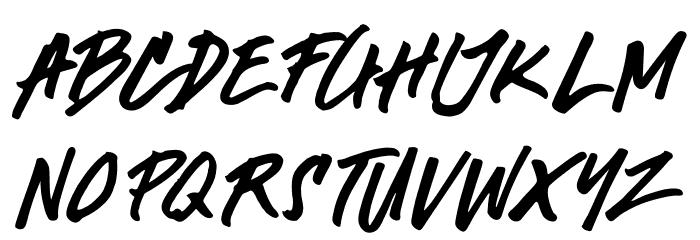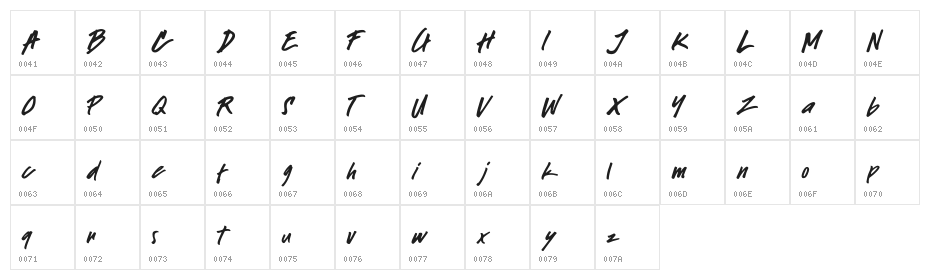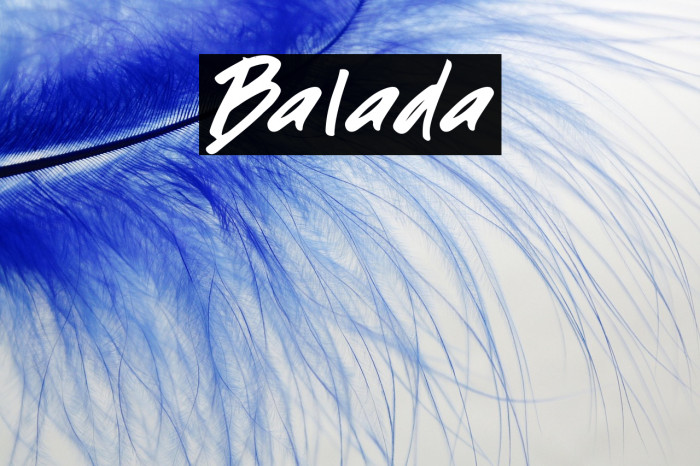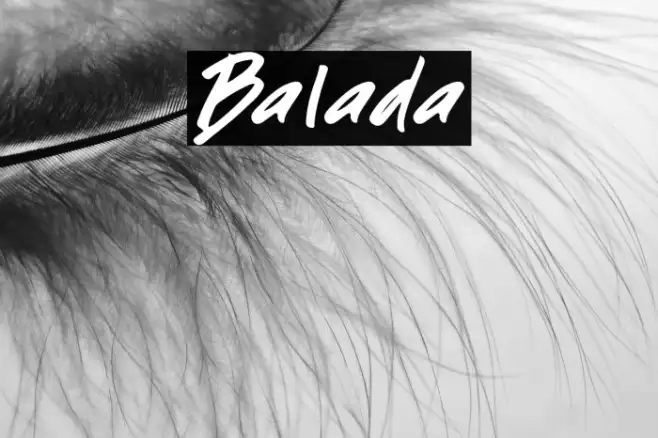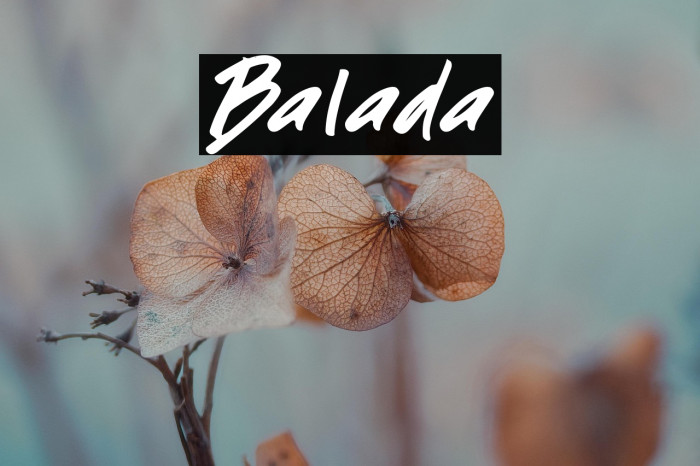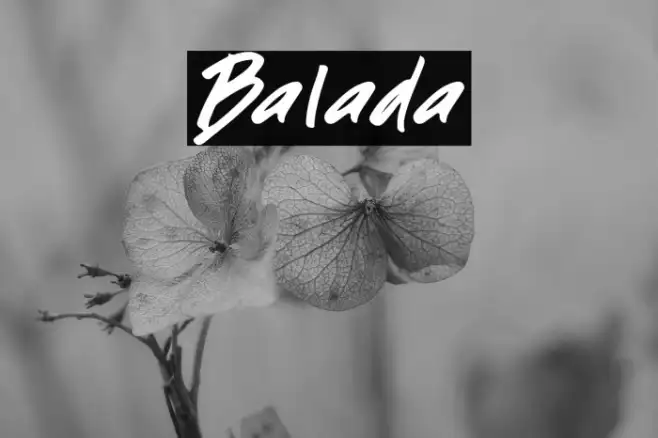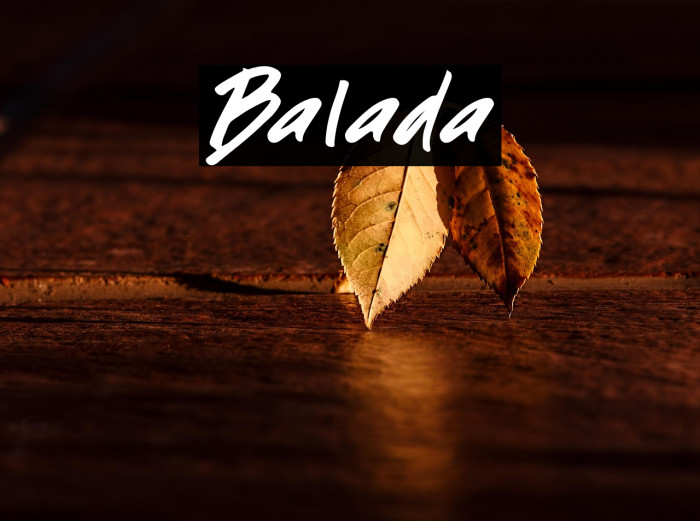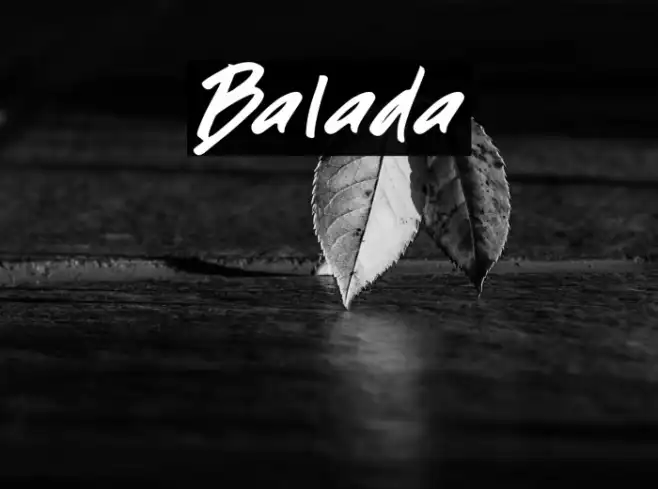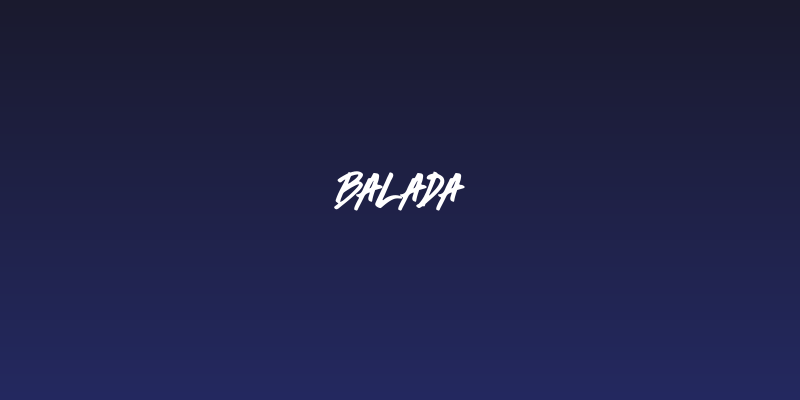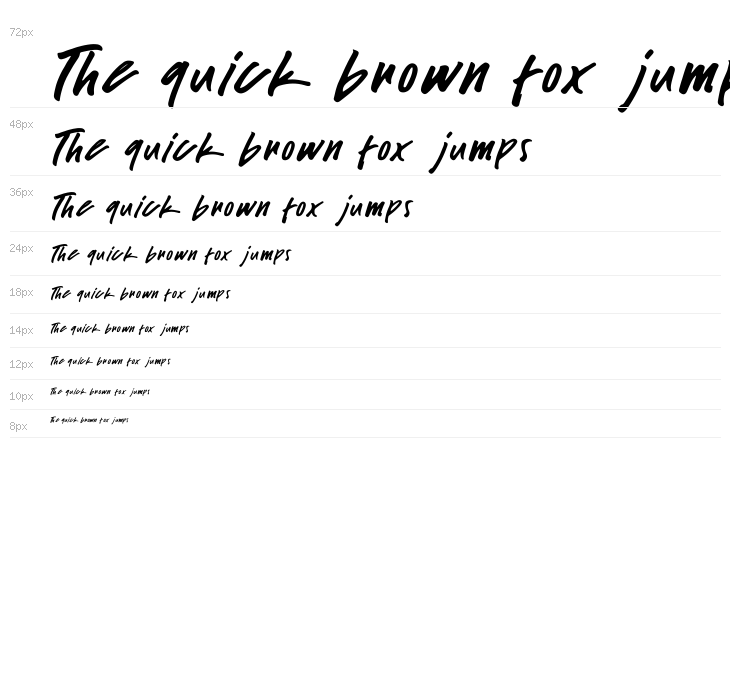
Balada Font
Balada Description
This font exudes a bold and energetic style with its handwritten appearance. The strokes are thick and dynamic, giving a sense of movement and personality. Each letter is crafted with a slightly irregular form, enhancing its casual and expressive nature. The uppercase and lowercase letters maintain a consistent flow, while the numbers and special characters integrate seamlessly into the overall design. This font is perfect for projects that require a personal touch or a lively, informal vibe.
| Proposed Projects | Ideal for branding, social media graphics, posters, and invitations where a personal and energetic touch is desired. |